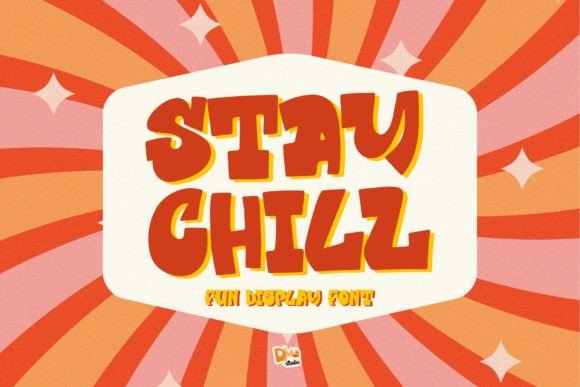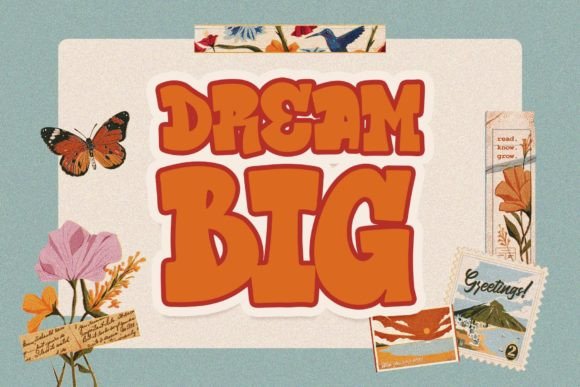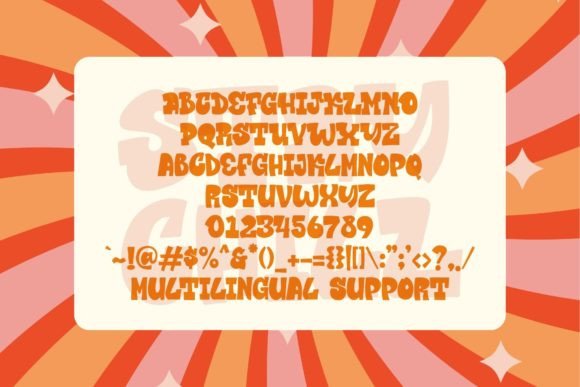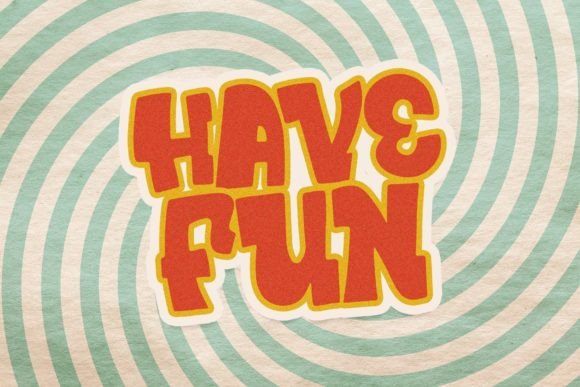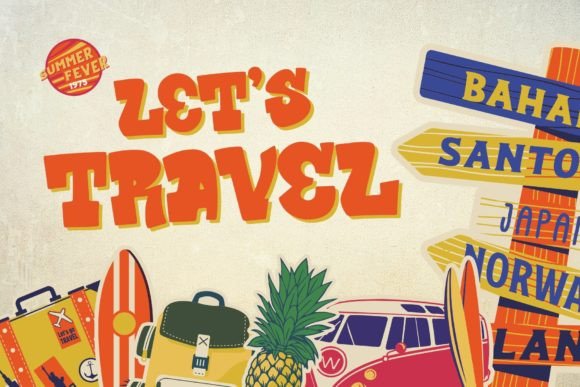
Stay Chill
Stay Chill: A Fun Graffiti-Style Slab Serif Font
Stay Chill is a fun typeface. It’s a graffiti-style slab serif font that will be great for any design or even for your collectible asset. Have fun and make your crafts more gorgeous!
Key Features of Stay Chill
• Graffiti-Style Design: Offers a unique, street-art inspired look.
• Slab Serif Structure: Features distinctive serifs that add character and style.
• Fun Aesthetic: Brings a playful and energetic feel to designs.
• Versatile Application: Suitable for various design projects and collectible assets.
Ideal Uses for Stay Chill
Stay Chill’s unique characteristics make it particularly well-suited for:
When incorporating Stay Chill into your designs, consider these tips:
• Use for headlines or short phrases to showcase its graffiti-style features.
• Experiment with different sizes to highlight the font’s fun and energetic character.
• Utilize its playful appearance to create designs that evoke a sense of youth and urban culture.
Stay Chill is an excellent choice for designers looking to add a fun and graffiti-inspired slab serif font to their typographic toolkit. Its ability to bring a playful and energetic vibe to various design projects makes it stand out in the world of typography. Whether you’re working on urban-inspired branding, creating trendy merchandise, or developing content for digital collectibles, Stay Chill offers the perfect blend of street style and versatility.
Furthermore, Stay Chill’s unique design allows it to shine in various contexts where a touch of urban flair is desired. From social media graphics to creative craft projects, this font can elevate your designs with its distinctive style. Its fun yet readable appearance works particularly well in designs that aim to convey a sense of youthfulness and contemporary cool.
In conclusion, Stay Chill is a font that truly captures the essence of graffiti-inspired design with a playful twist. Its versatility across different applications showcases its adaptability to various creative needs. For those looking to add a touch of urban charm to their work, Stay Chill can enhance themed creations with its distinctive style. It’s the perfect choice for designers seeking to make a fun, stylish impact across a wide range of creative projects.